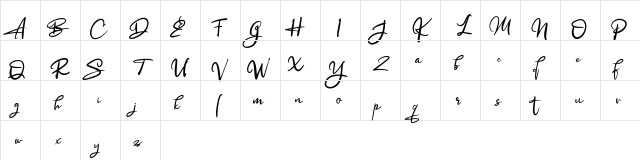
Algorty FREE Regular
Design Context for Algorty FREE Typeface
Algorty FREE is a composed and adaptable typeface that performs quietly and consistently across a wide range of design contexts.